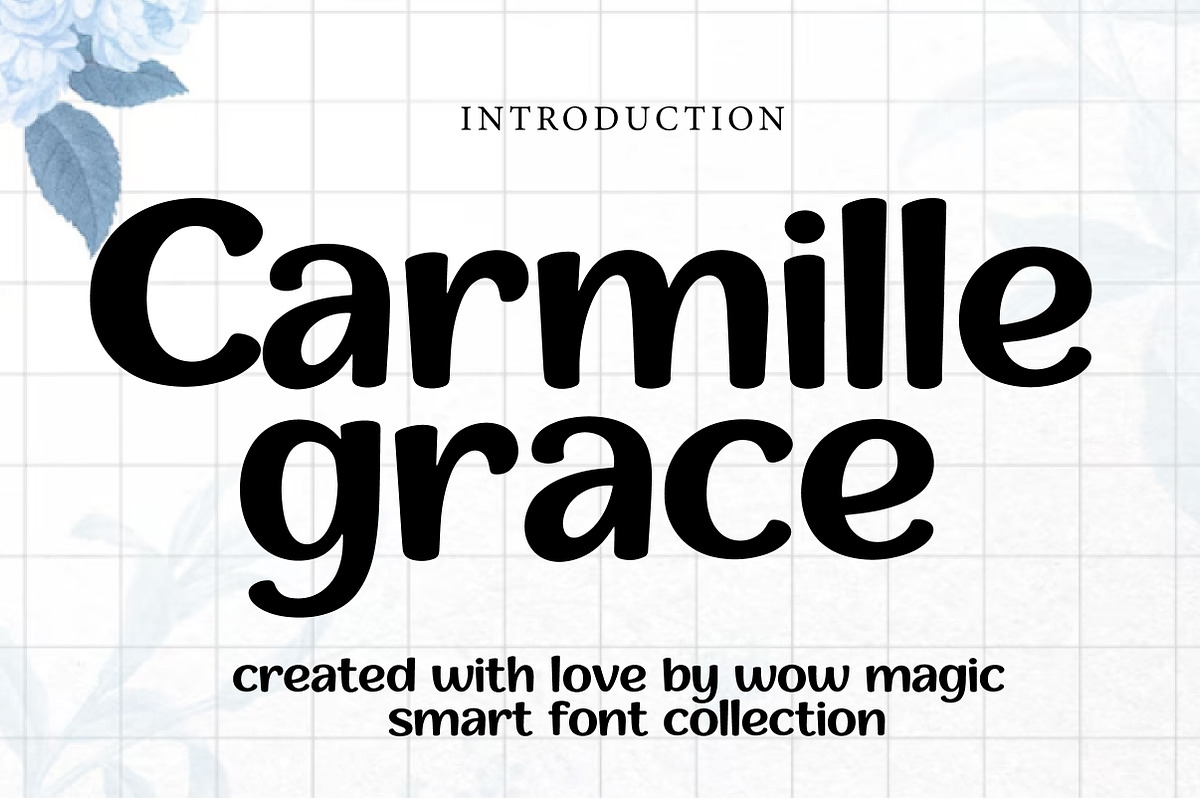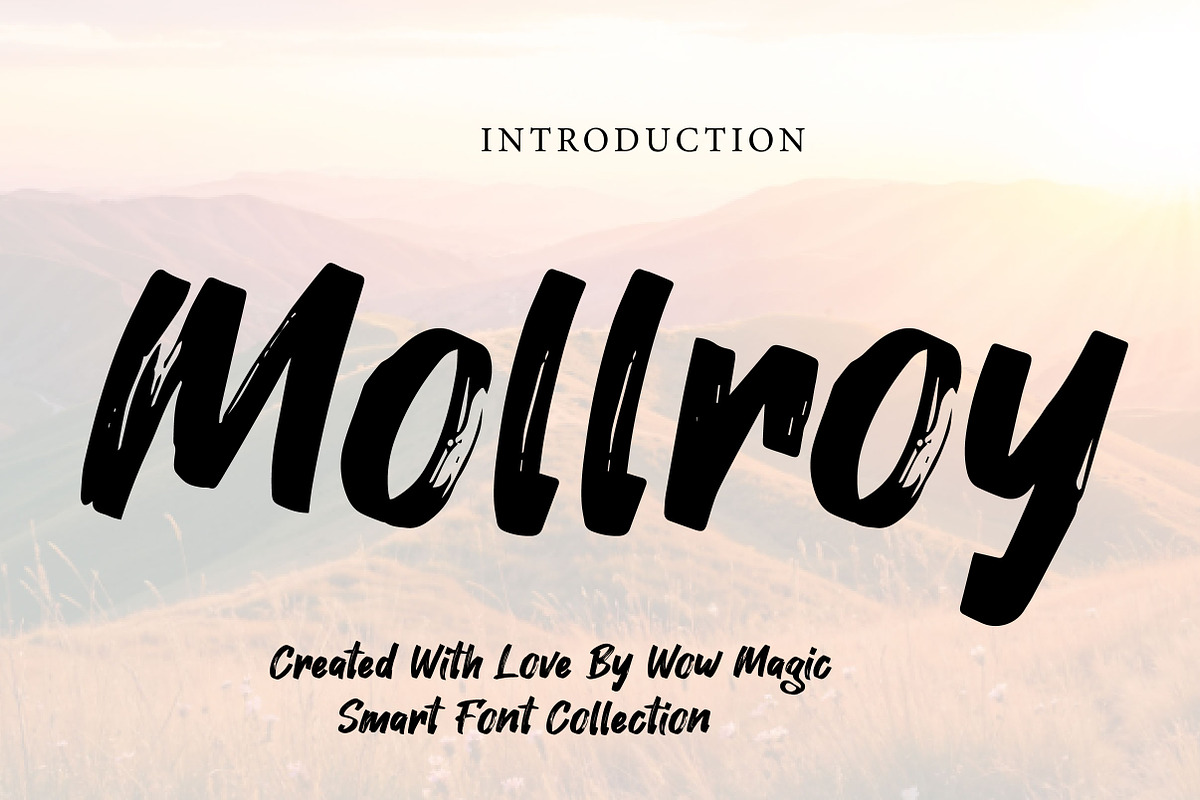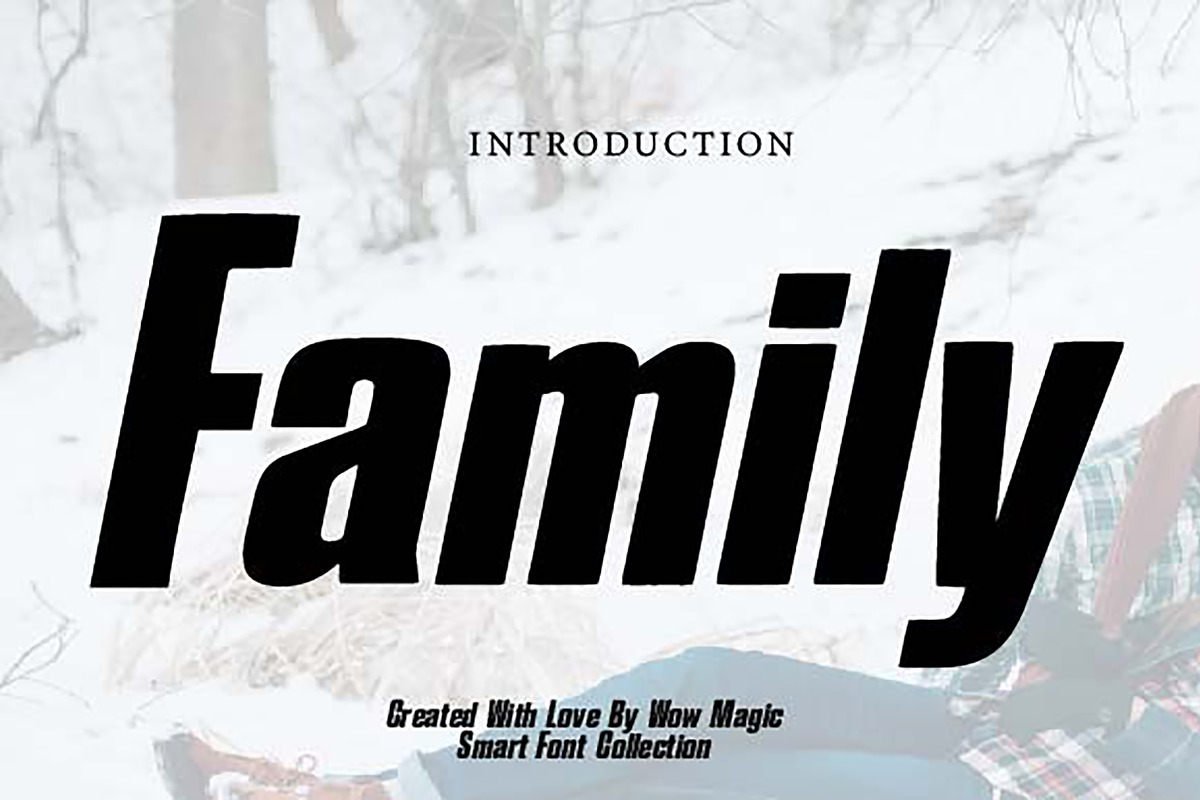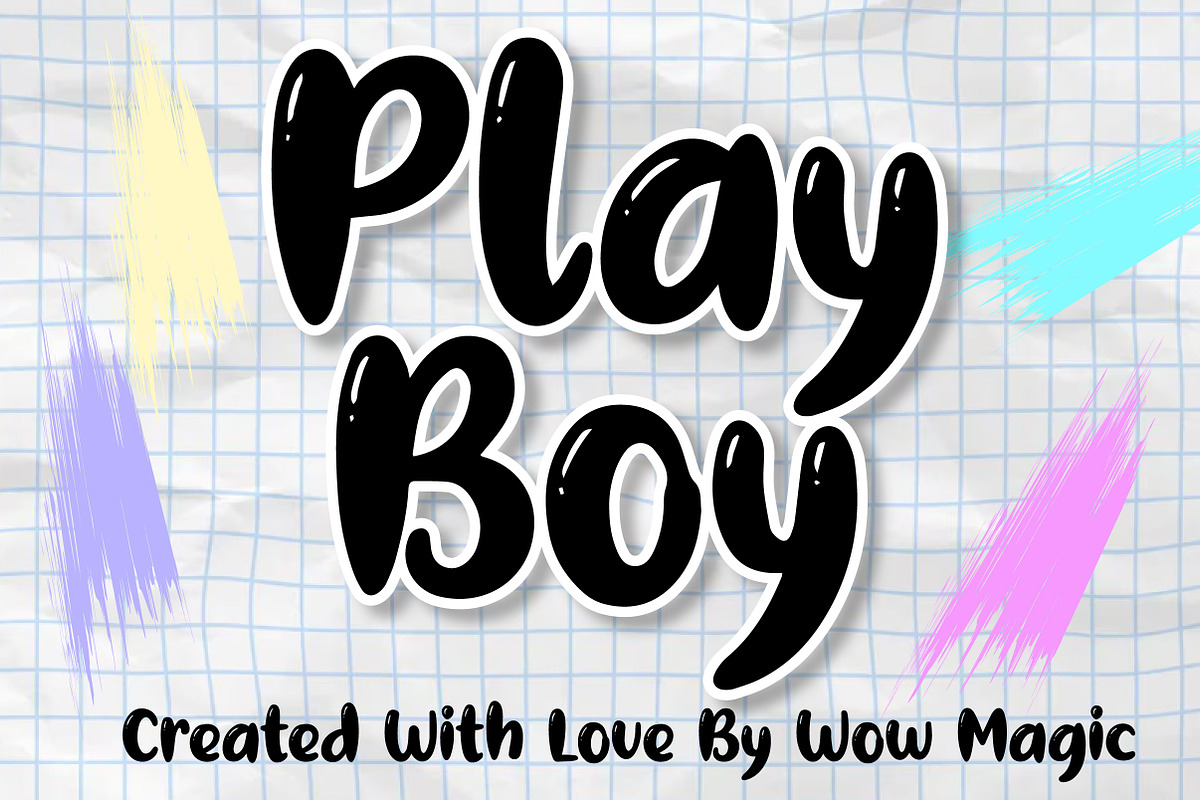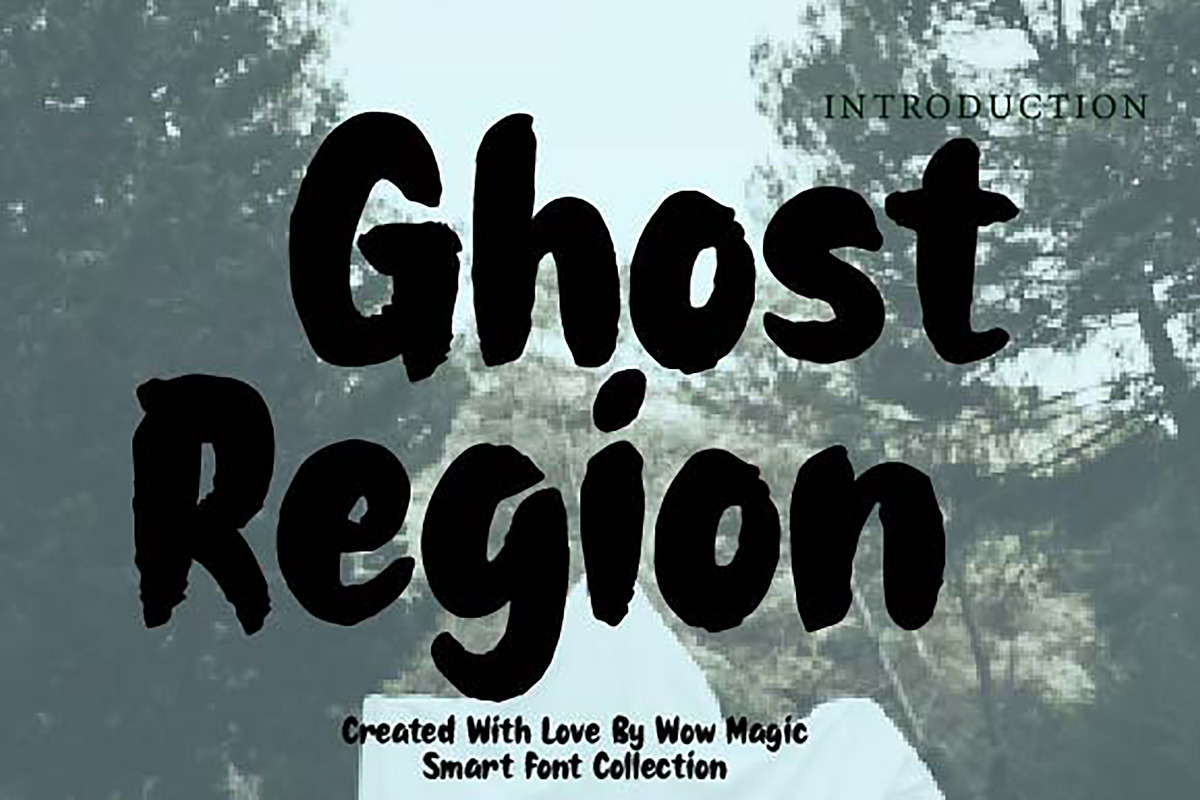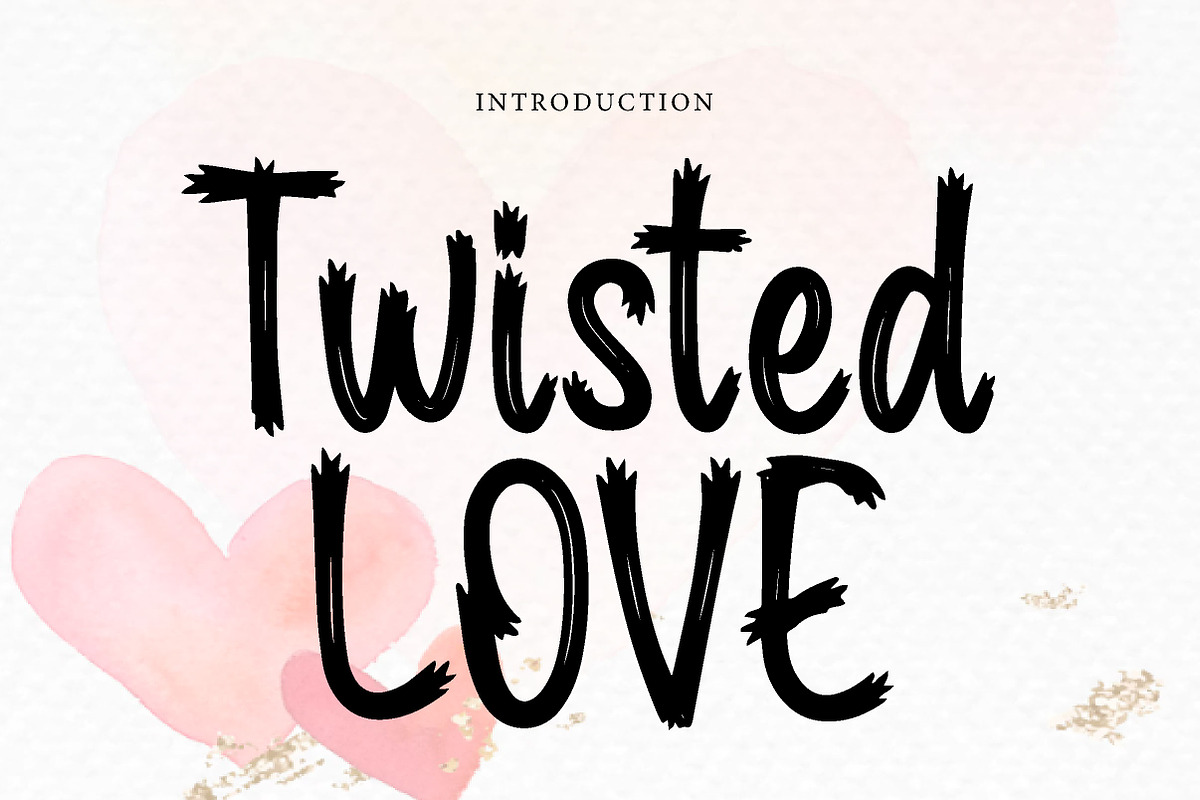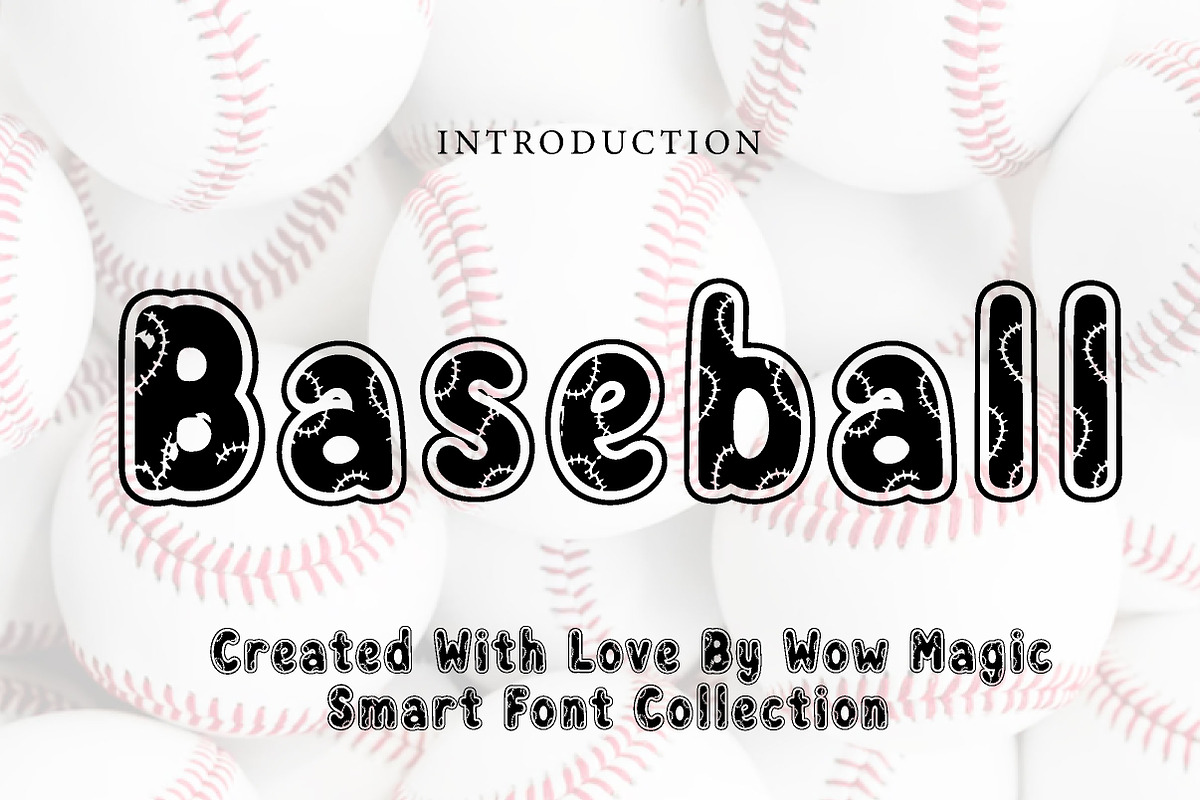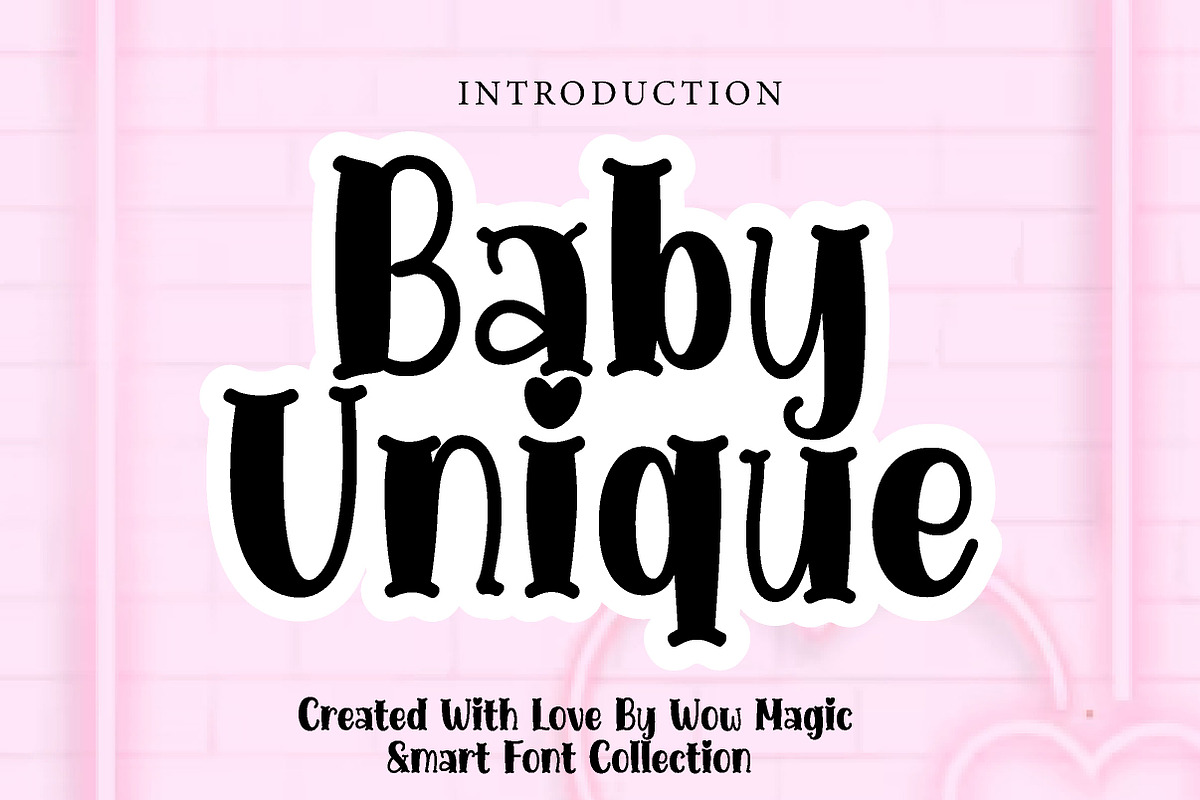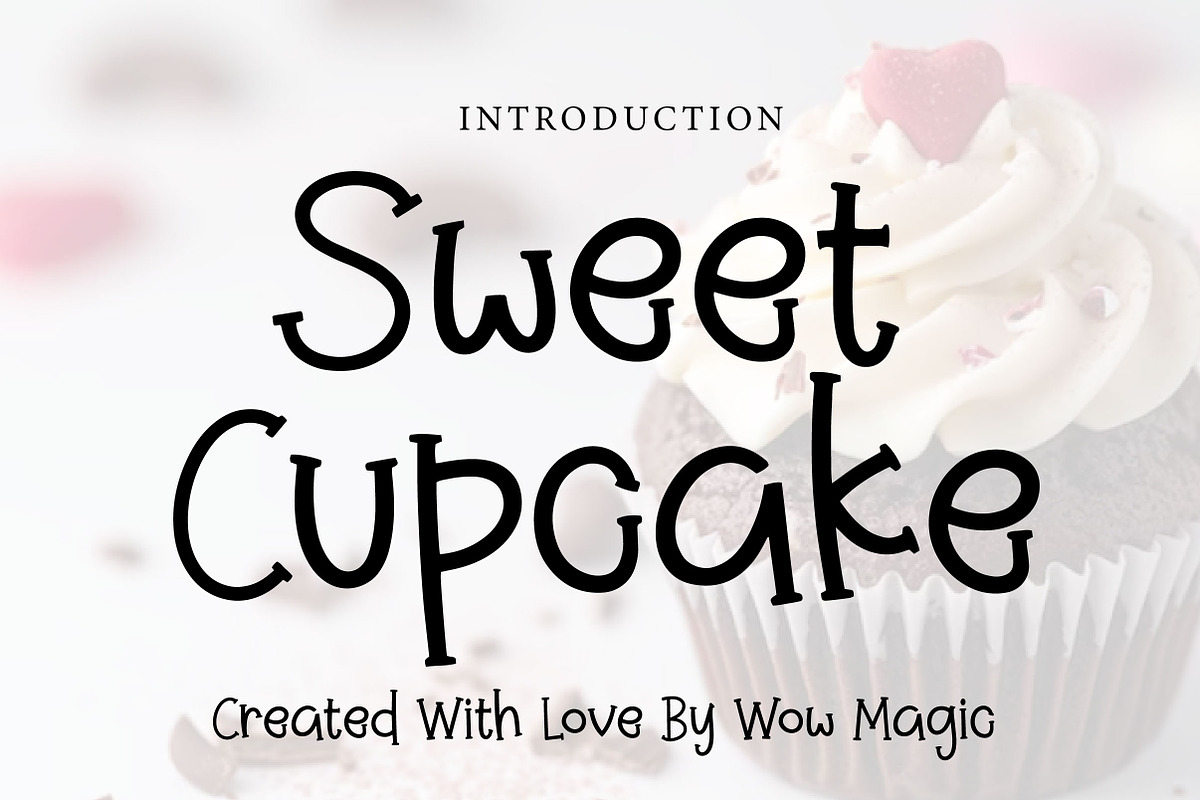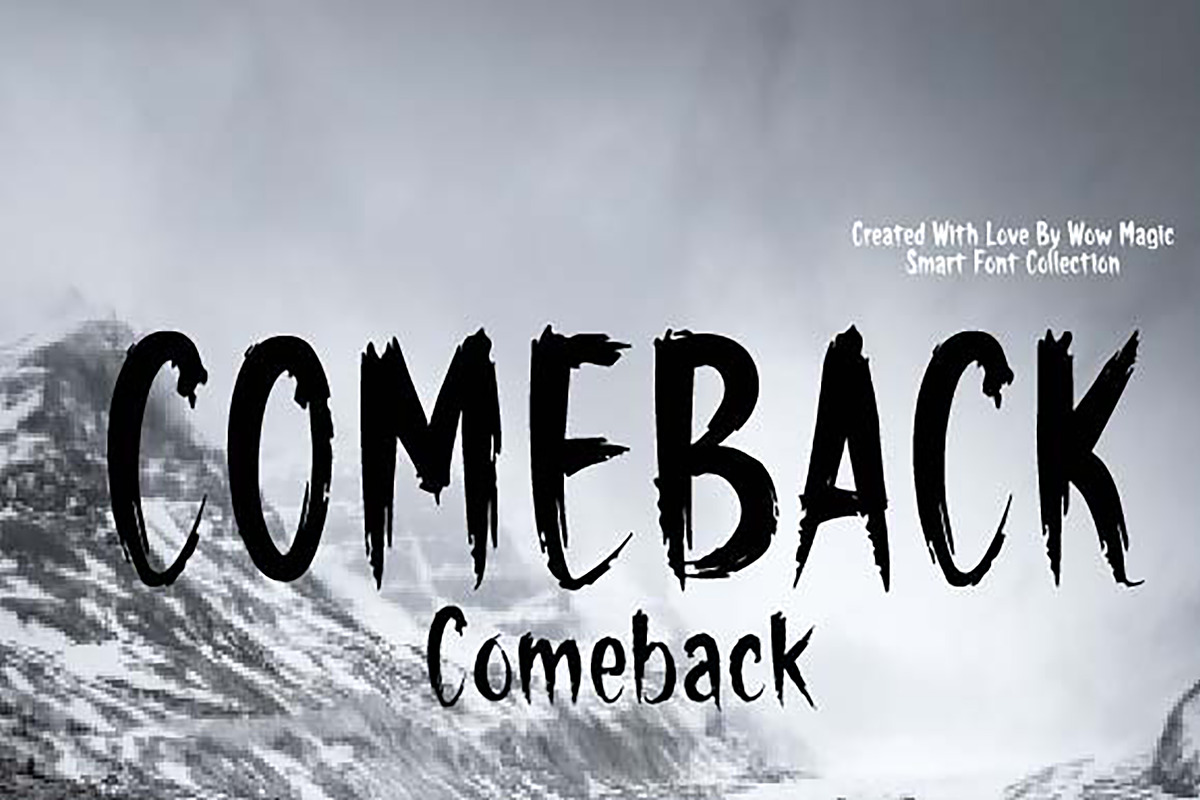
Mega Seasonal Font Bundle
Mega Seasonal Font Bundle – 40+ Premium Script, Kids, Holiday & Display Fonts
A massive collection of 40+ unique seasonal and creative fonts perfect for Cricut projects, t-shirts, mugs, logos, branding, invitations, stickers, sublimation designs, and commercial use.
Mega Seasonal Font Bundle
Upgrade your design collection with this amazing Mega Seasonal Font Bundle featuring 40+ unique and high-quality fonts carefully selected for a wide range of creative projects.
From playful kids fonts and handwritten scripts to holiday-inspired and bold display typefaces, this bundle provides everything you need to create eye-catching designs for personal and commercial projects.
✔ 40+ Unique Fonts
✔ Script Fonts
✔ Handwritten Fonts
✔ Kids Fonts
✔ Holiday & Seasonal Fonts
✔ Decorative Display Fonts
Font Styles Included
• Cute Fonts
• Kids Fonts
• Easter Fonts
• Handwritten Fonts
• Brush Fonts
• Decorative Fonts
• Display Fonts
• Seasonal Fonts
• Modern Fonts
• Unique Fonts
Bring your creative ideas to life with this versatile collection of premium seasonal fonts.